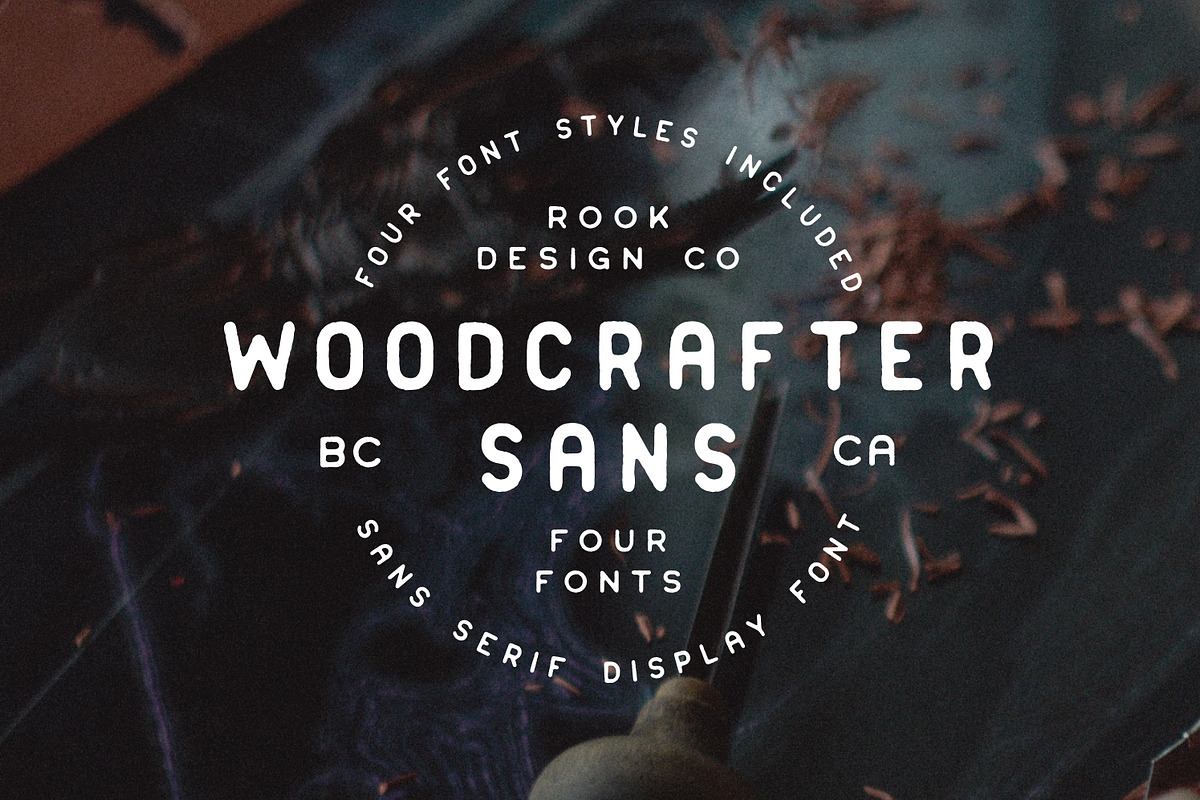
Woodcrafter Sans 4 Font Family Free Download is a rustic yet refined typeface collection that offers four distinct styles for all your creative needs. Inspired by the sturdy, handmade feel of traditional craftsmanship, this font family is perfect for logos, packaging, signage, posters, and branding projects that require a natural and authentic touch.
Whether you’re working on a rugged outdoor brand, a vintage-style logo, or a rustic product label, Woodcrafter Sans adds warmth, character, and strength to your typography. It’s the perfect font family for designers who love combining tradition with modern functionality.